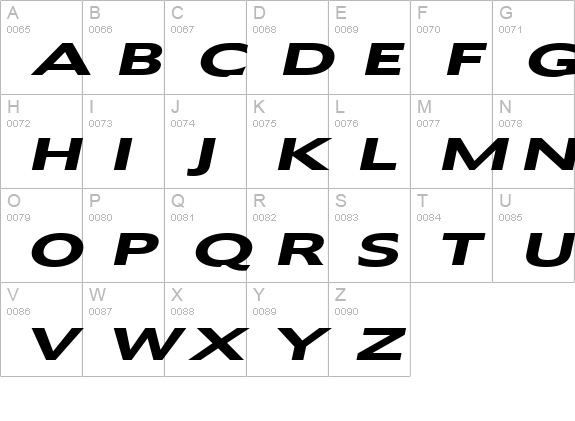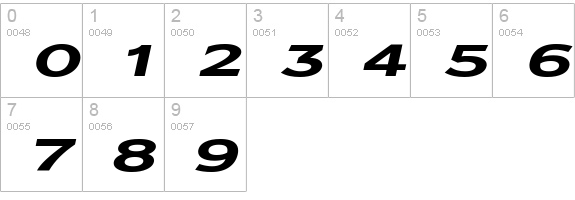
Adams Extended Bold Italic is a strong, high-contrast, extended-width, italic variant in the Adams typeface family \xE2\x80\x94 well suited to headlines, attention-grabbing titles, and strong calls-to-action.
Adams Extended Bold Italic font is a striking and modern typeface that demands attention with its bold and italicized design. This font exudes confidence and sophistication, making it perfect for adding a touch of elegance to your projects. With its extended characters, Adams Extended Bold Italic font is ideal for headlines, posters, and other display purposes where you want to make a bold statement. The best part is that Adams Extended Bold Italic font is available for free download at FontsMarket.com. This means you can easily access this stylish font with just a few clicks. Whether you're a designer looking to enhance your creations or a business owner in need of a standout font for branding, Adams Extended Bold Italic font is a versatile choice that will elevate your designs to the next level. Download it today and see the difference it can make in your projects.